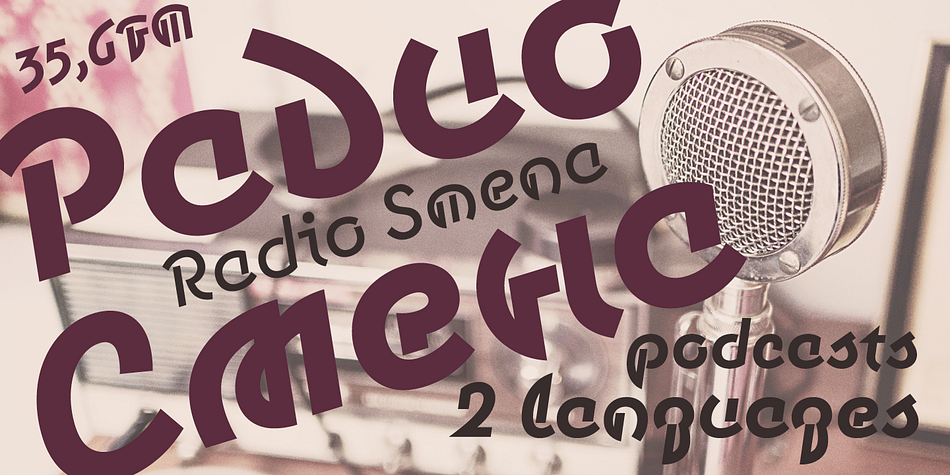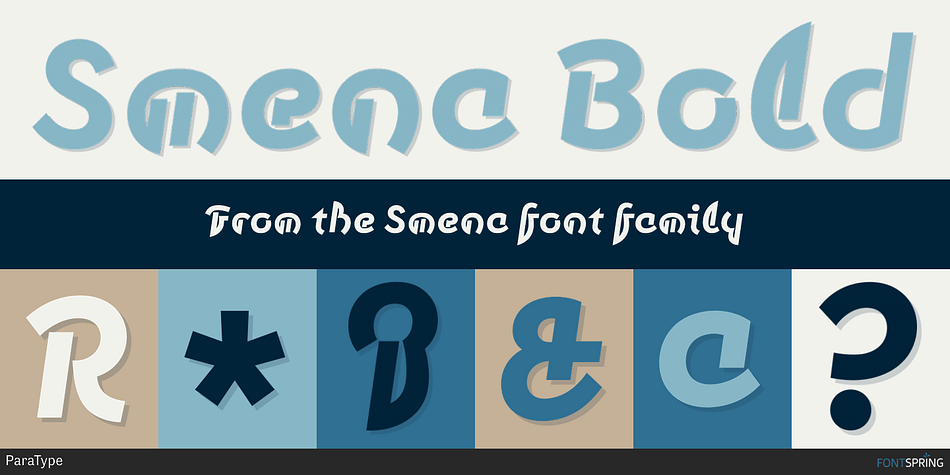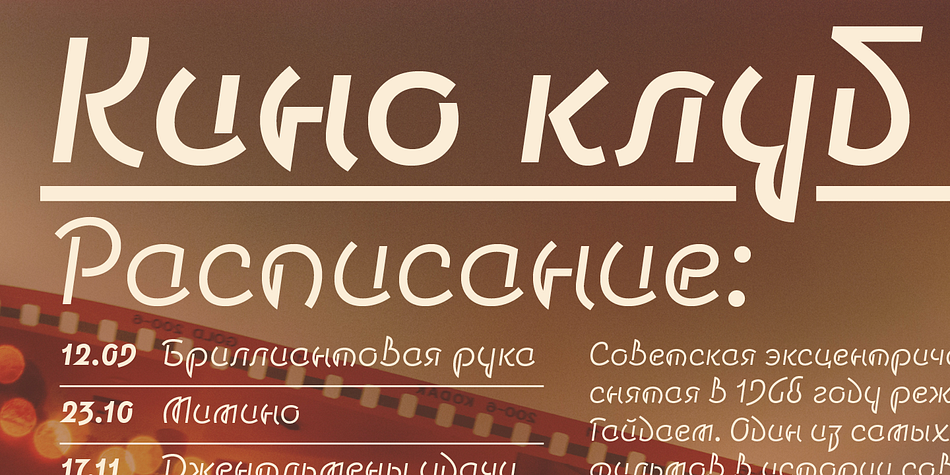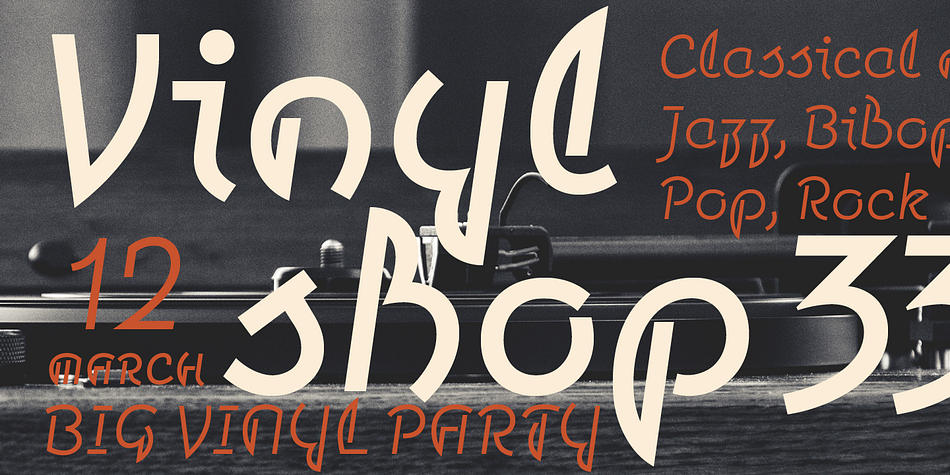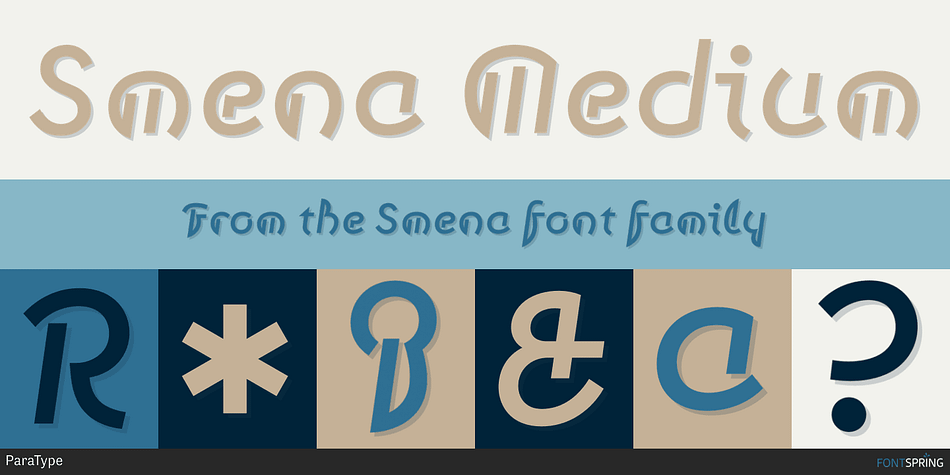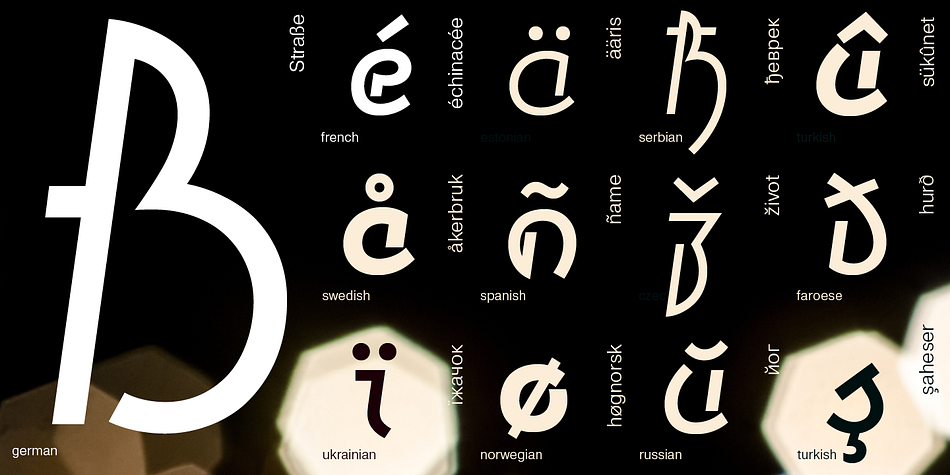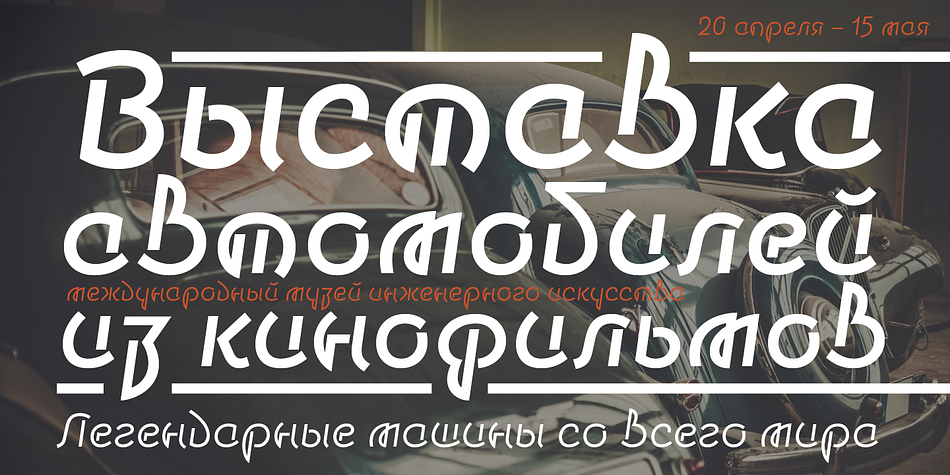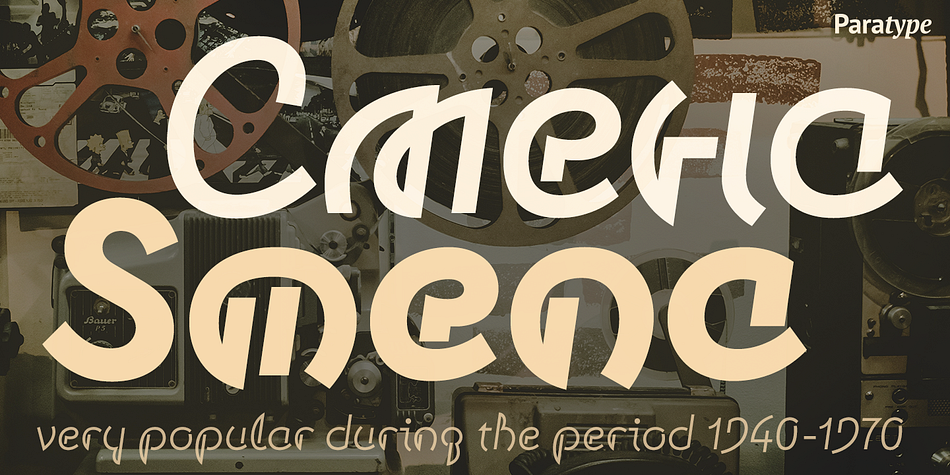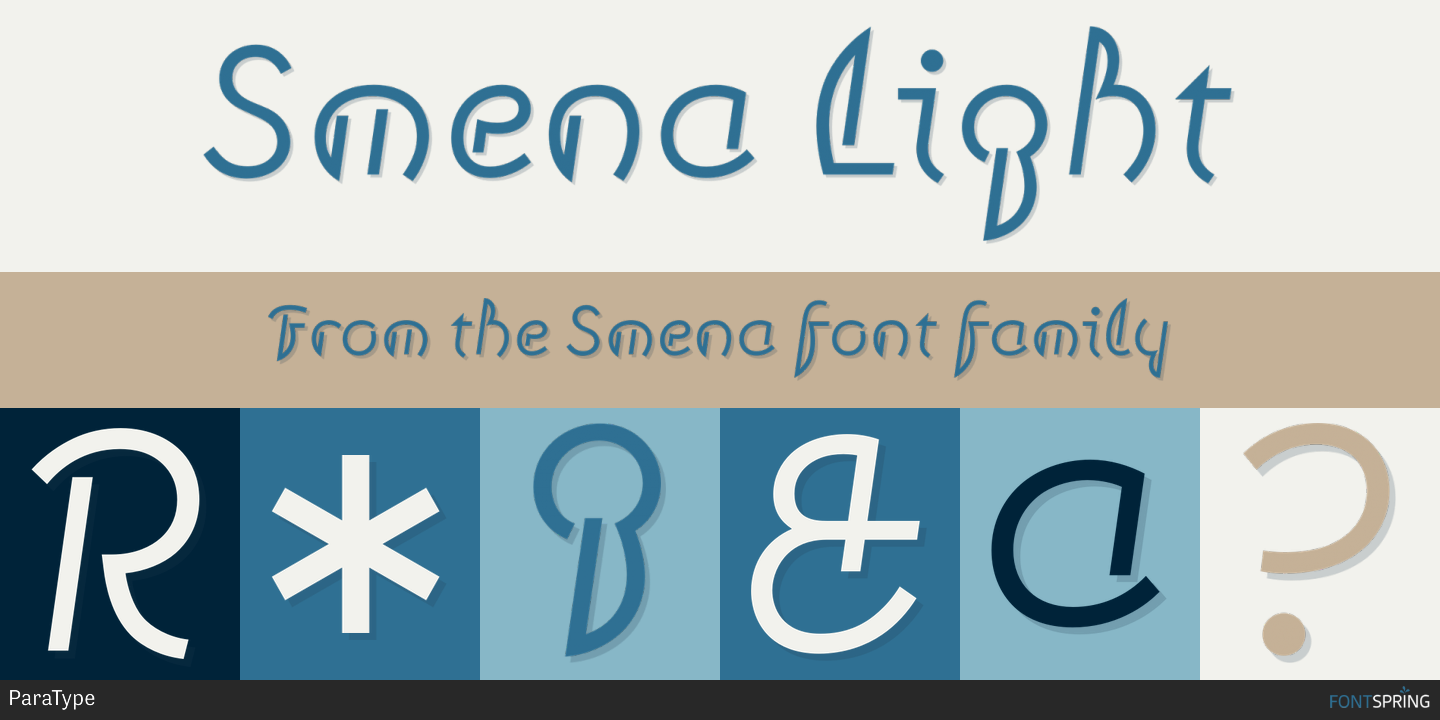
Designed by Vladimir Pavlikov, Smena is a display font family. This typeface has three styles and was published by ParaType.
The Smena display typeface was designed in 1999-2001 by Vladimir Pavlikov. It is based on the lettering of so called ‘calligraphic style’ that was very popular in 40-70s of the twentieth century.
The style was used in logos, book and magazine headlines, posters, signage etc. It is best suited for use in advertising and display typography and was licensed by ParaType in 2006.